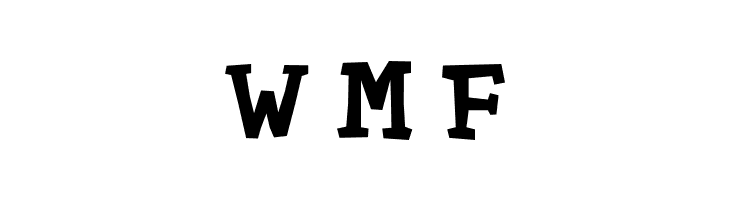
A diverse illustrated hand gesture font with cartoon and realistic styles.
A slim, handwritten font with an organic and personal touch.
An intricate blackletter font with ornate, gothic-inspired letterforms.
A playful, hand-drawn font with dynamic strokes and whimsical bird illustrations.
A whimsical, hand-drawn font with playful bird-themed characters.
A bold, angular font with a rugged, geometric design.
A bold, hand-drawn font with a dynamic, graffiti-like style.
A lively and dynamic handwritten font with fluid strokes and playful tilt.
A dynamic, cursive script font with elegant flourishes and a handwritten feel.
A bold, shadowed font with a three-dimensional effect.
A bold, angular font with a modern twist on traditional styles.
A pixelated, monospaced font with a retro digital aesthetic.
A dynamic, sports-themed font featuring baseball player silhouettes.
A bold, geometric font with a modern, industrial feel.
Cartoonish, medical-themed decorative font with hand-drawn illustrations.
Abstract faces instead of a traditional font.
A bold, playful font with a spooky Halloween theme.
A bold, rounded font with a playful and modern style.
An elegant and ornate script font with flowing, decorative letterforms.
A bold, spiky display font with an edgy, dynamic style.
A bold, spiky, and dynamic decorative font with high contrast.
A bold, contour-style font with thick outlines and a playful, assertive presence.
A bold, playful font with a shadow effect, perfect for eye-catching designs.
A playful, hand-drawn font with a whimsical and cartoonish style.
An elegant, cursive script font with flowing, decorative characters.
An elegant, cursive script font with flowing, interconnected characters.
Hand-drawn hieroglyphic-inspired decorative font with sketchy lines.
Hand-drawn mountain and hill illustrations.
A whimsical, hand-drawn font with irregular, playful strokes.